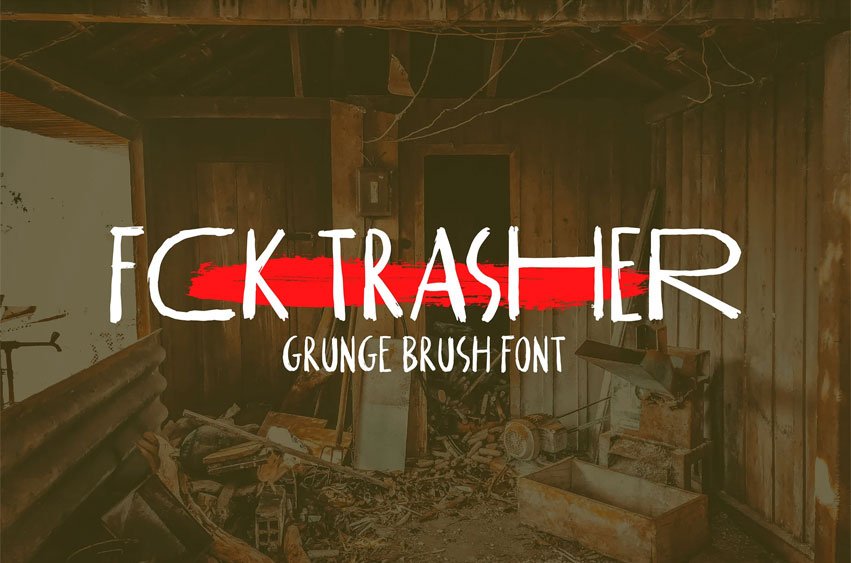
FCK Trasher Font
FCK Trasher Font is a brush handdrawn font, they have a verry brush and grunge character.
Suitable and applicable to create typography design, social media feed, card, branding, logos, product packaging, invitation, qoutes, t-shirt, label poster etc.